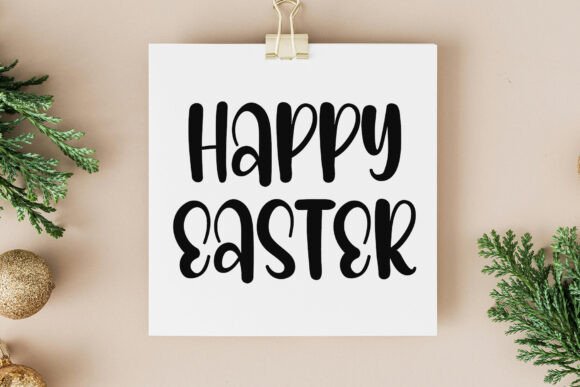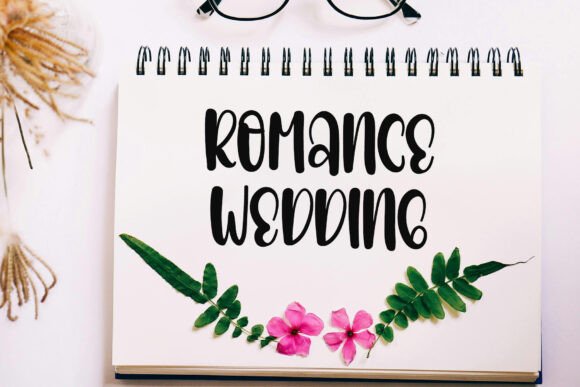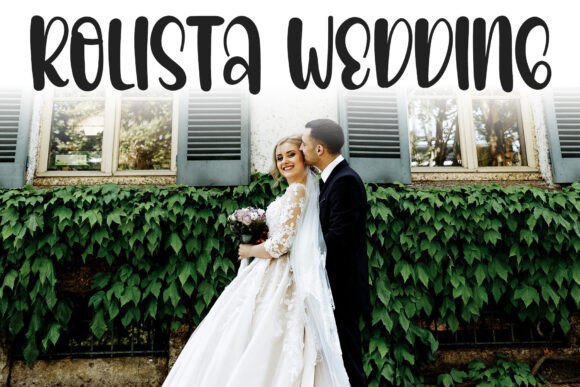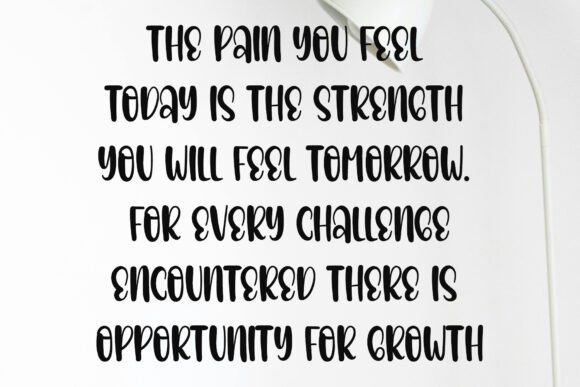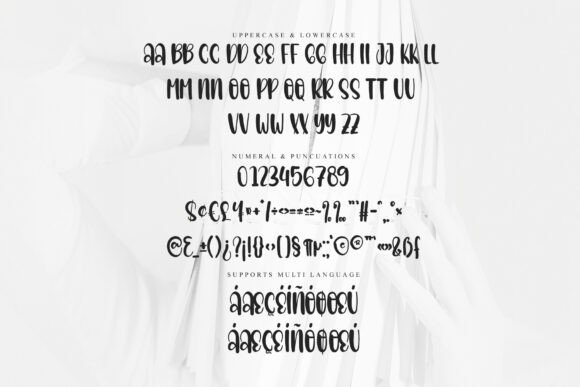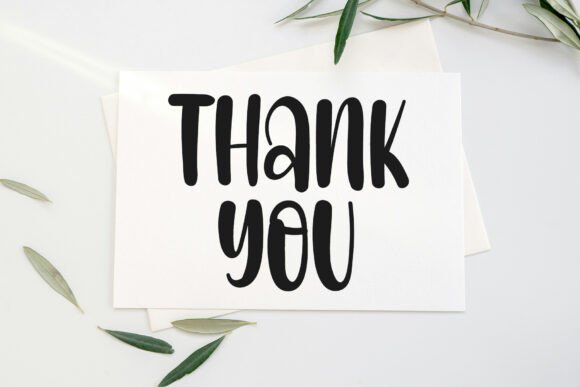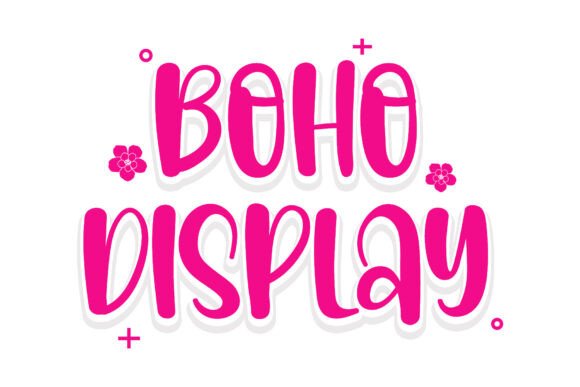
The Boho Display Font: A Stylish Handwritten Addition to Your Design Arsenal
I’ll never forget the time I was working on a project for a client who wanted a font that was both elegant and playful. I had spent hours scouring the internet for the perfect match, but nothing seemed quite right. That was until I stumbled upon the Boho Display font. With its stylish handwritten aesthetic and impeccable form, it was love at first sight! In this article, we’ll dive into the world of Boho Display, exploring its features, how to use it, and what makes it so special.
An Honest Review of Boho Display
So, what makes Boho Display so great? Let’s take a closer look.
• ✨ Timeless classic calligraphy feel: Boho Display has a certain je ne sais quoi that instantly elevates any design project.
• ✅ Balanced and varied: The font’s carefully crafted letterforms ensure that your text always looks polished and refined.
• 💫 Contemporary atmosphere: Boho Display seamlessly blends traditional calligraphy with modern flair.
While Boho Display is an excellent font, there are a few things to keep in mind:
• ⚠️ Limited use in very small sizes: Due to its intricate details, Boho Display can become difficult to read in extremely small sizes.
• 🤔 Some characters may require manual kerning: While the font is generally well-spaced, some character combinations may require manual adjustment for optimal results.
The Story Behind Boho Display
Boho Display was inspired by the timeless beauty of classic calligraphy. Its creator aimed to craft a font that would blend traditional elegance with modern flair. The result is a stylish, handwritten font that’s perfect for a wide range of design projects.
Q: What is the best use for Boho Display?
A: Boho Display is ideal for designs that require a touch of elegance and sophistication, such as wedding invitations, branding materials, and social media graphics.
Q: Is Boho Display a difficult font to read?
A: Boho Display is generally easy to read, but it may become difficult in very small sizes due to its intricate details.